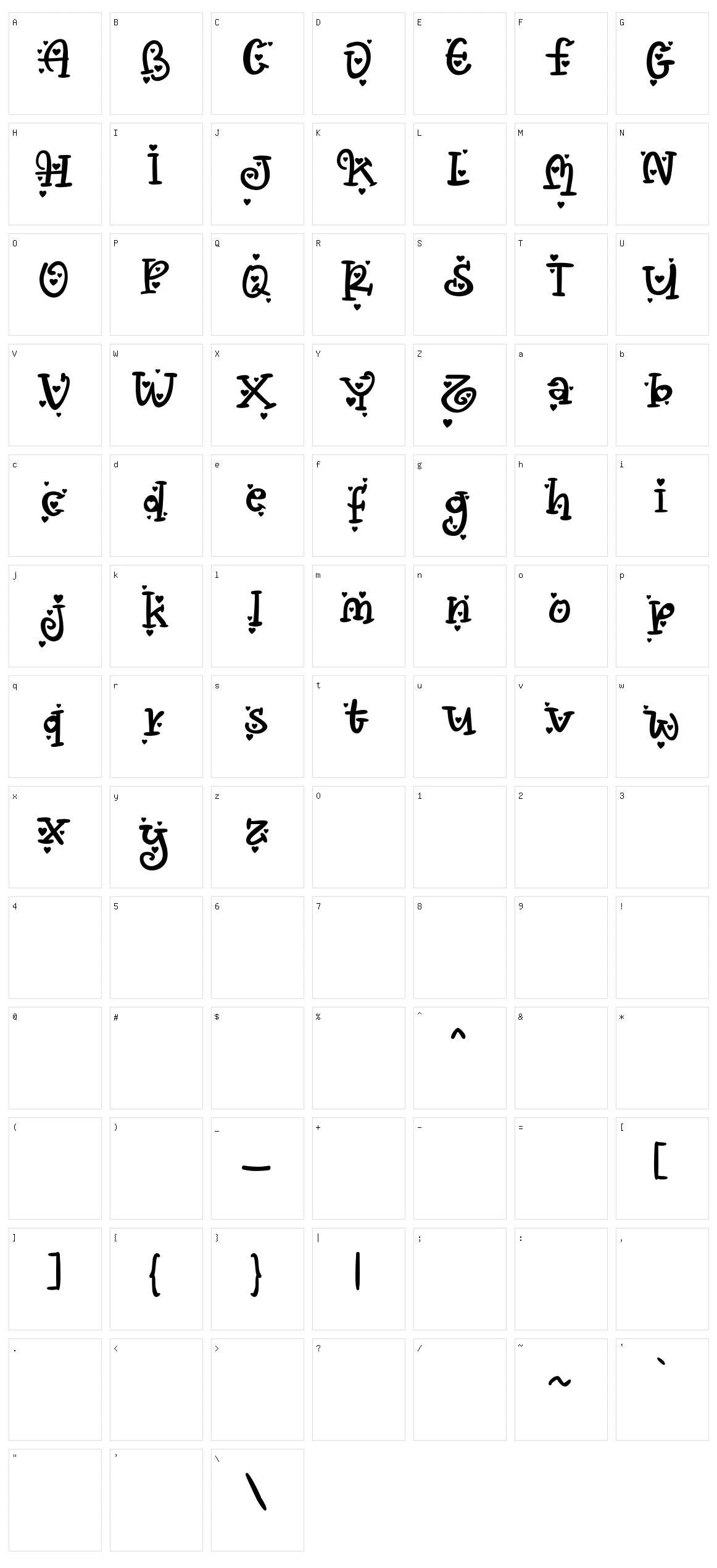
The free font Vallenia Love is carefully designed by Joko Setiono, showcasing a thoughtful balance of creativity and usability and falls under the Valentine font style. When you download the ZIP file, it contains only 93.26 KB of font files, making it lightweight and quick to download. Please review the license details below to understand permitted usage and distribution rights. If license information is not available, we recommend using this font for personal projects only or contacting the author directly for commercial usage permissions.